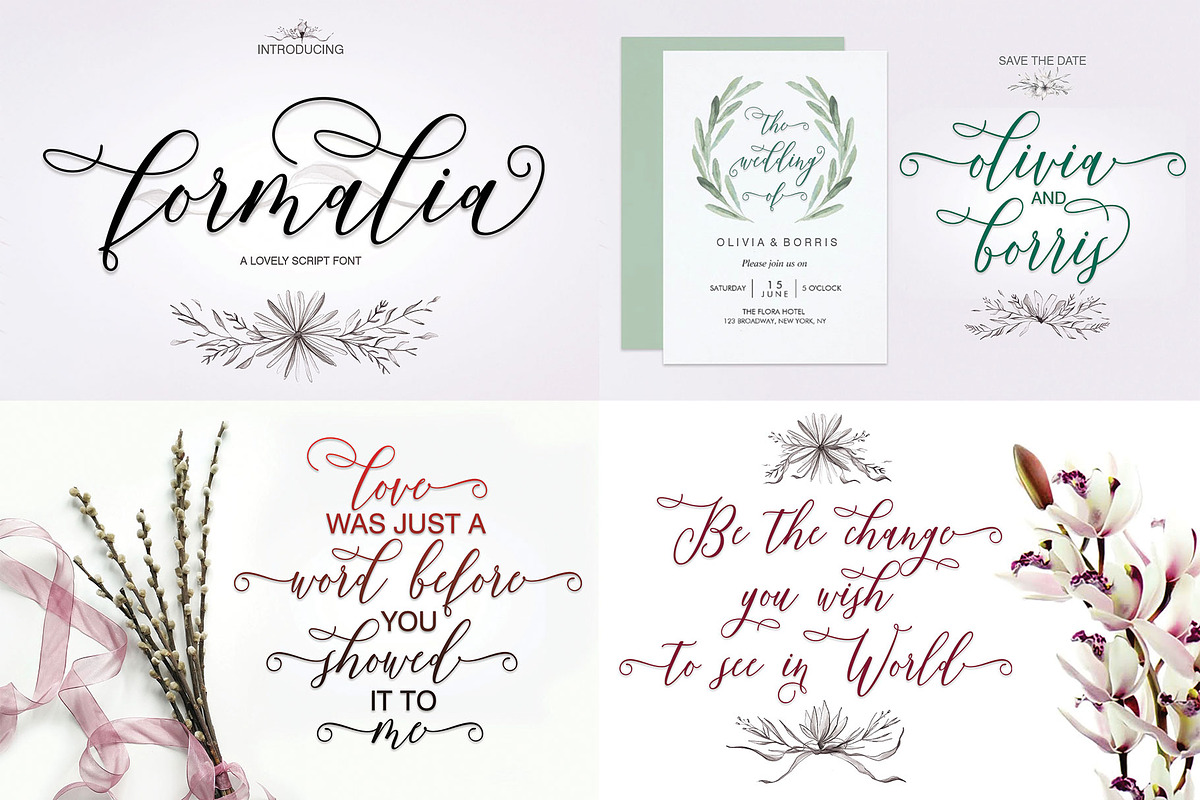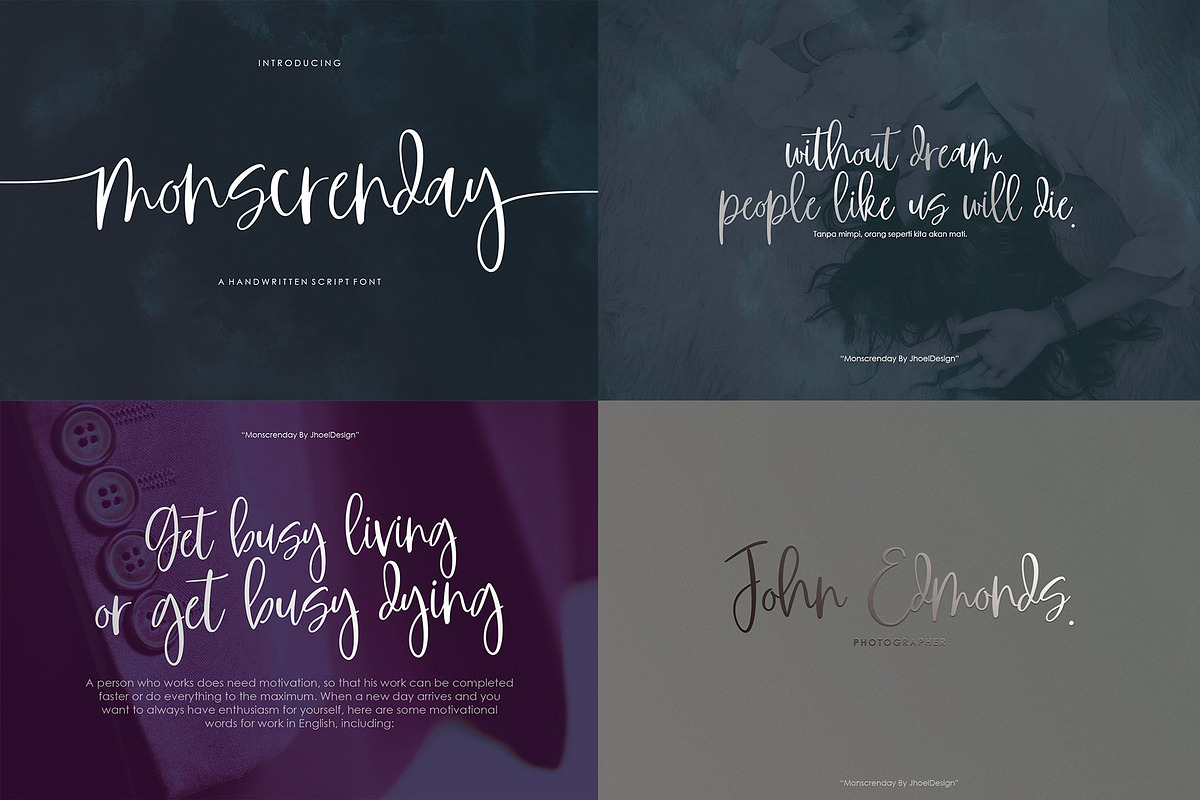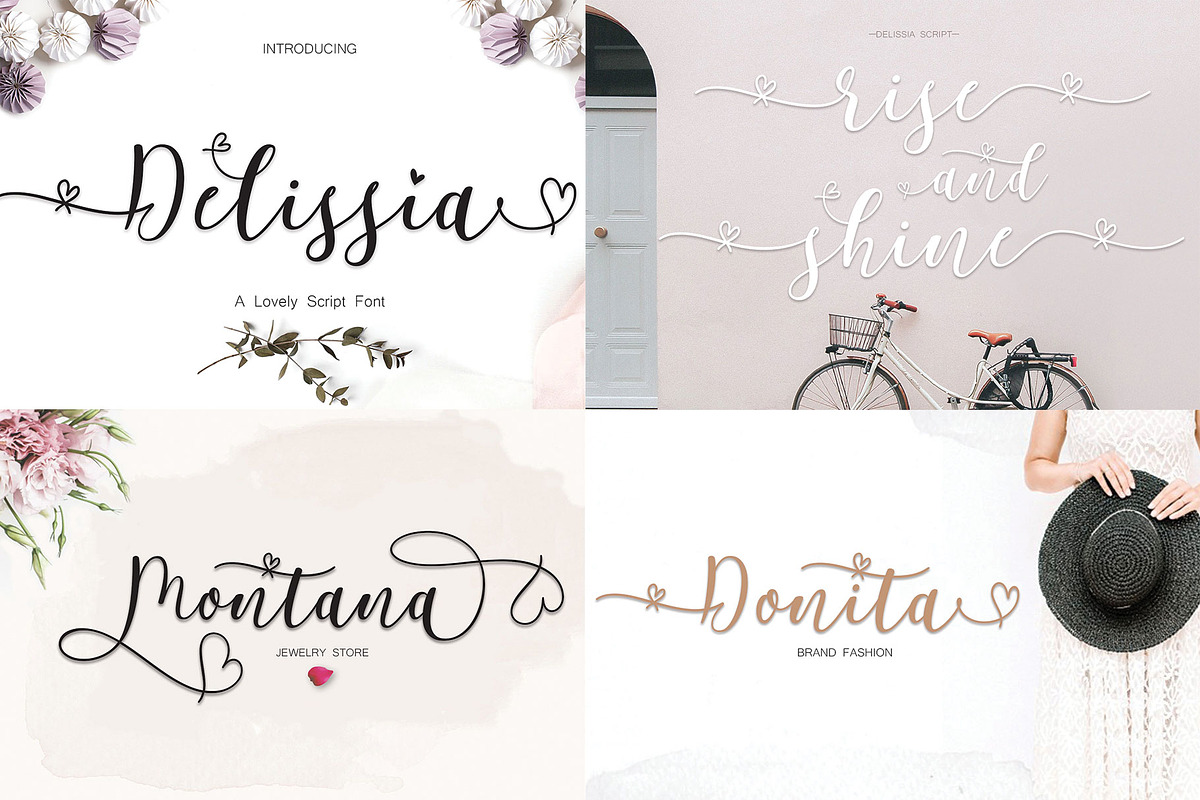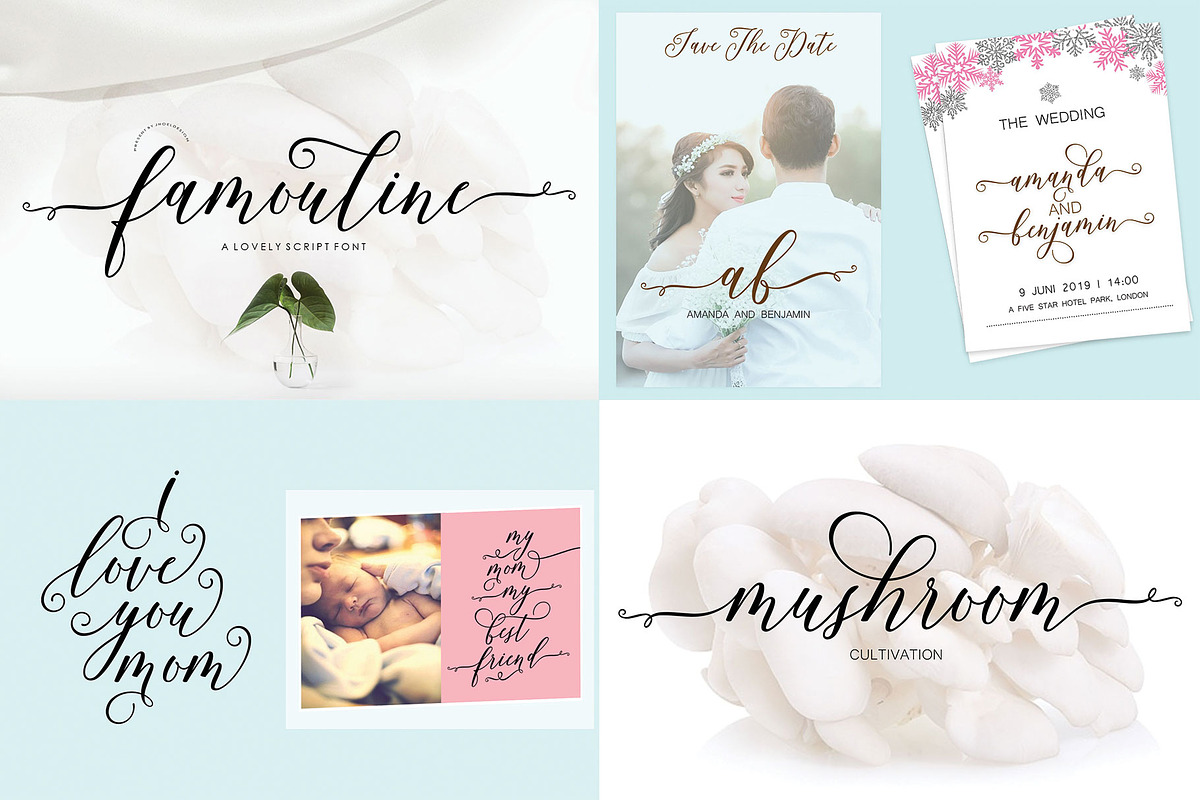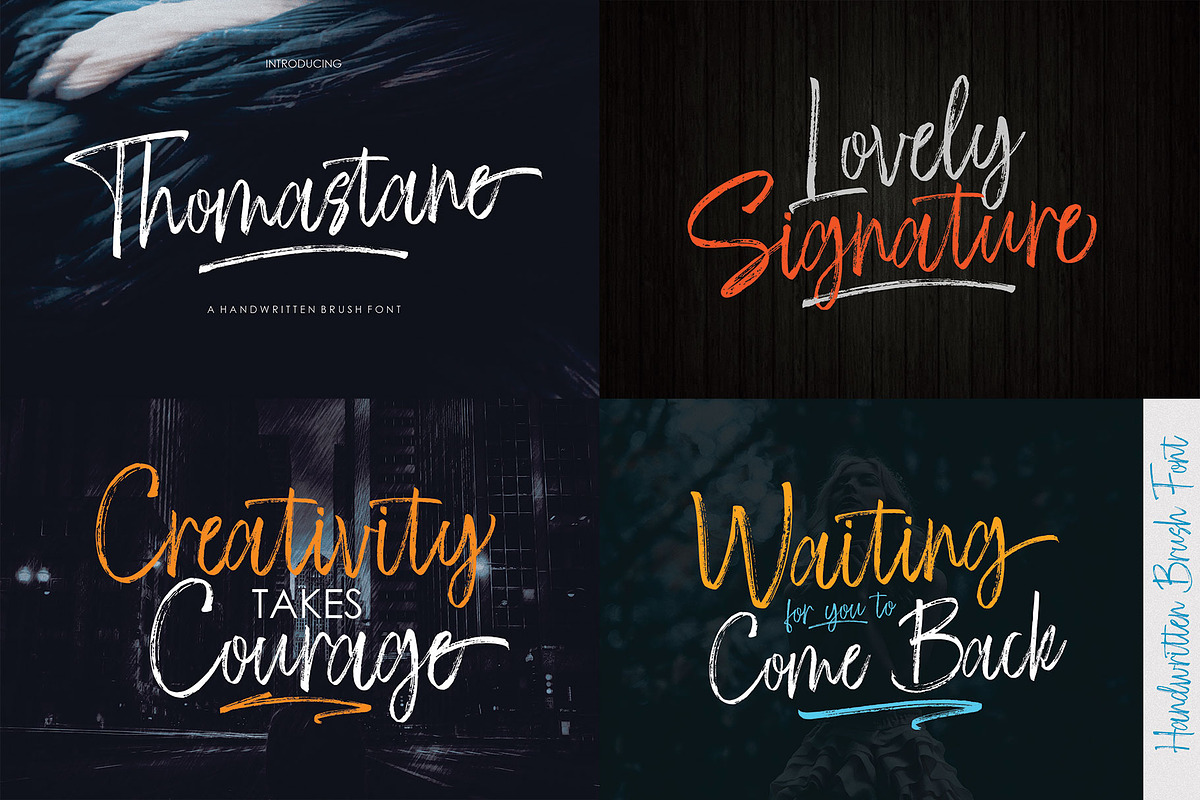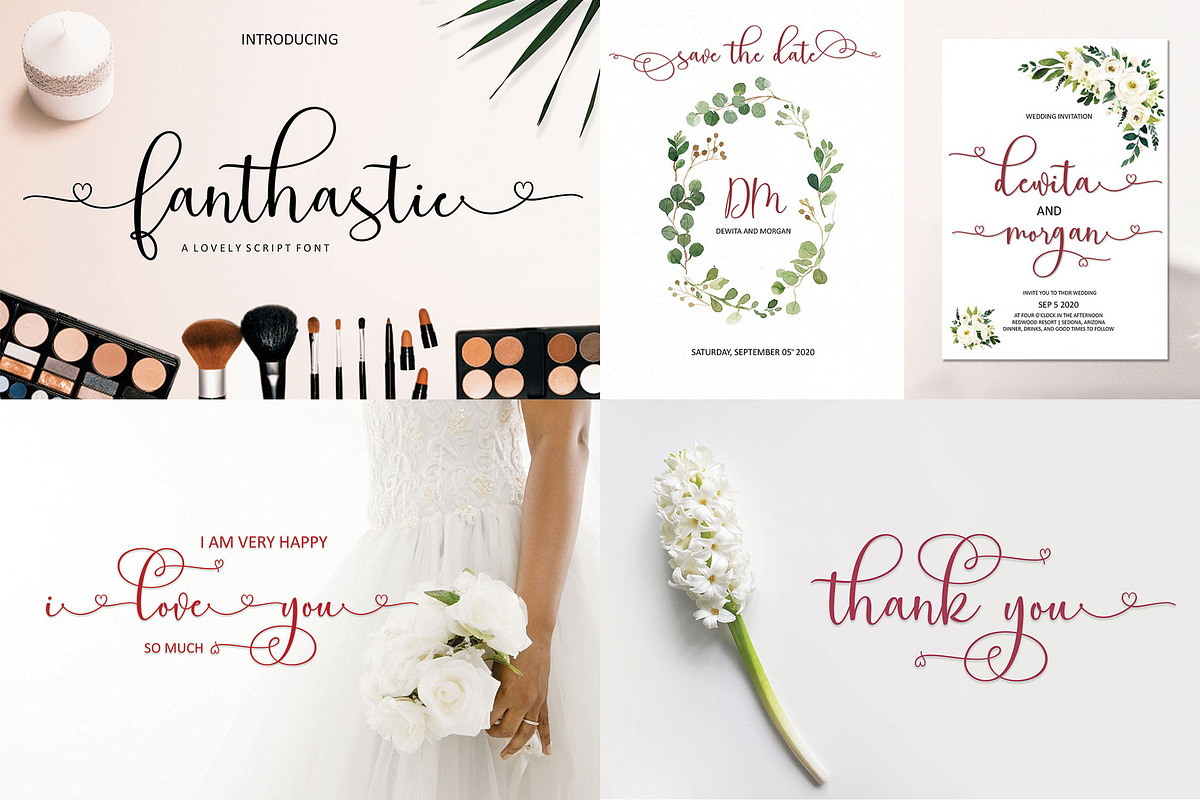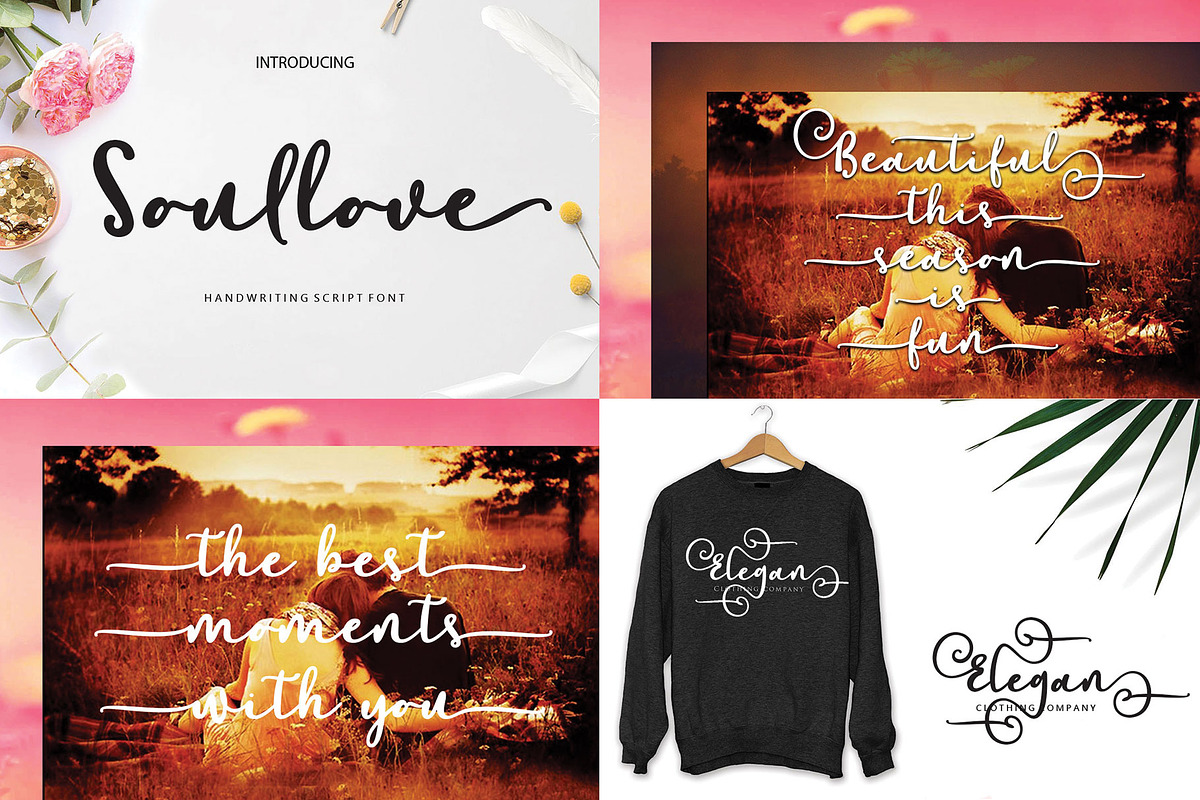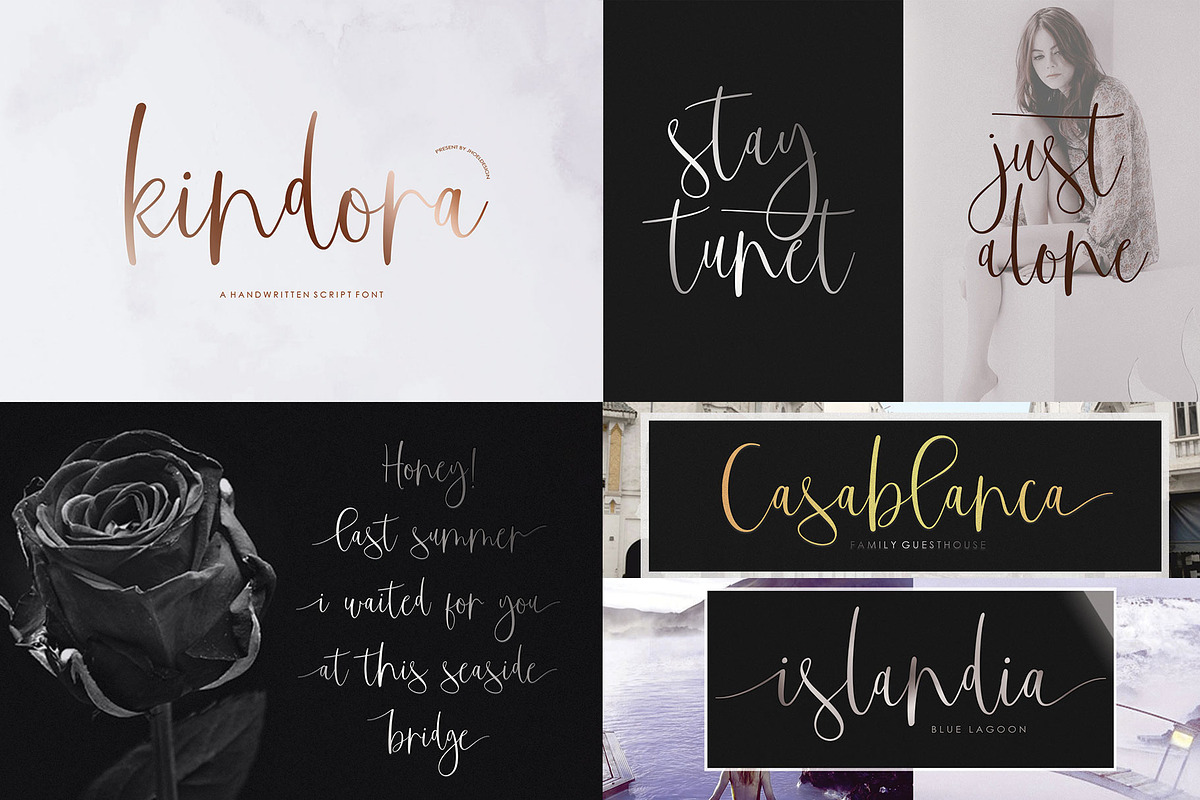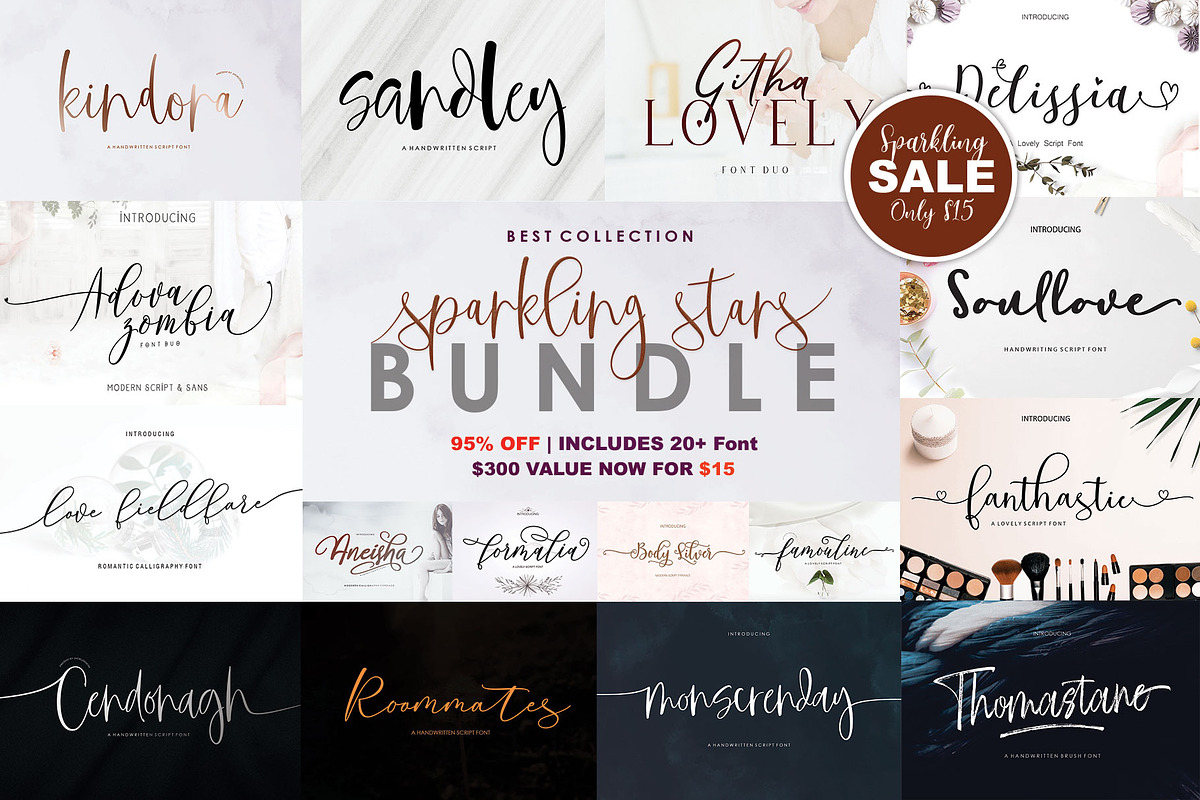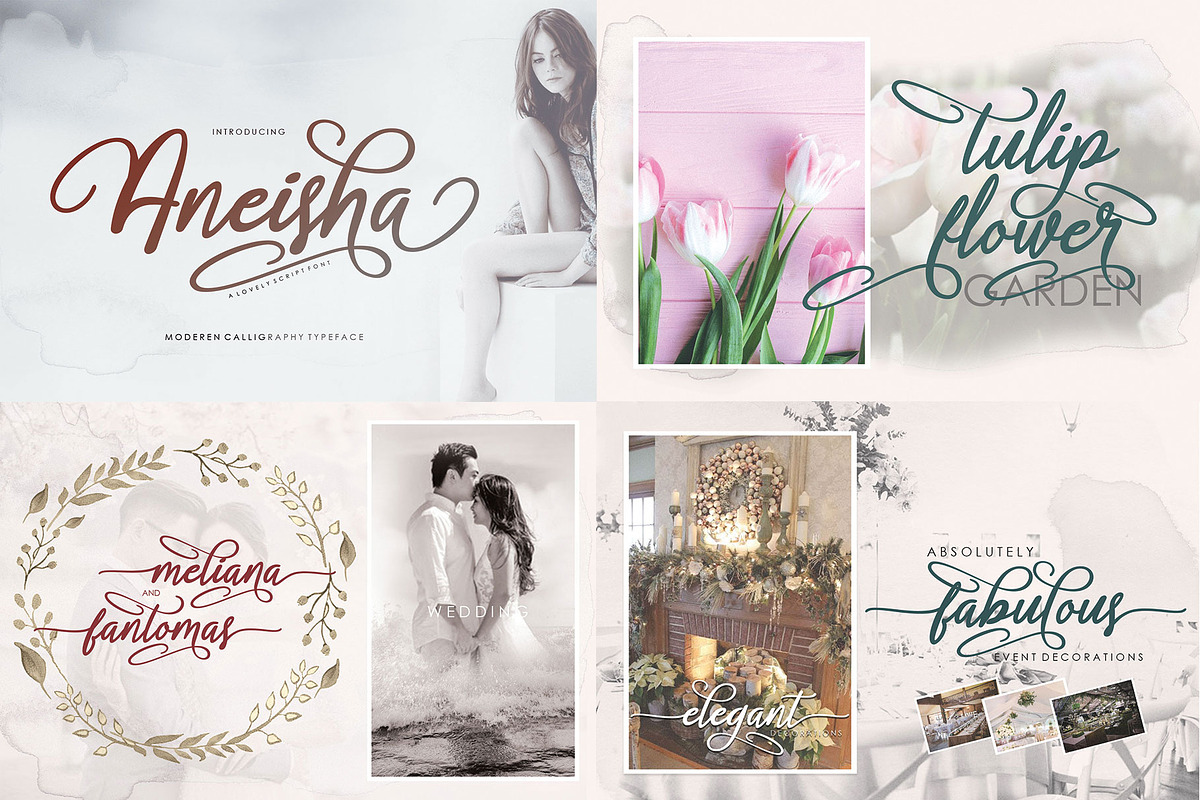
Sparkling Stars Bundle
Sparkling Stars Bundle This beautiful font collection features 20+ script fonts that will enhance any creation.
Pick your favorite handwritten font and use it in future projects. Create amazing logos, branding, wedding invitations, kitchen labels, business cards, greeting cards, posters, websites and much more!